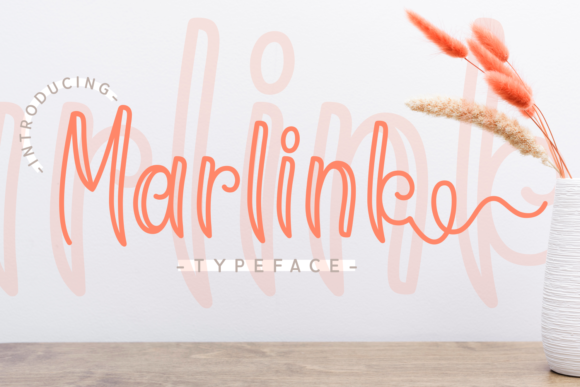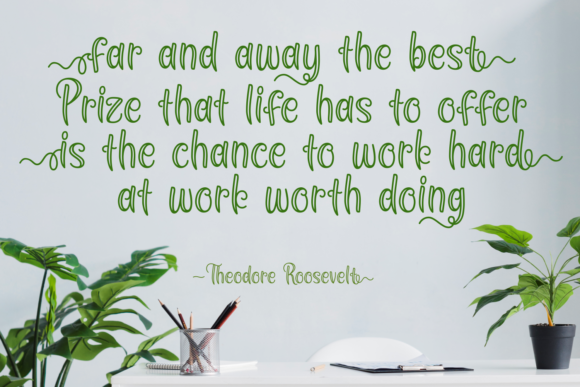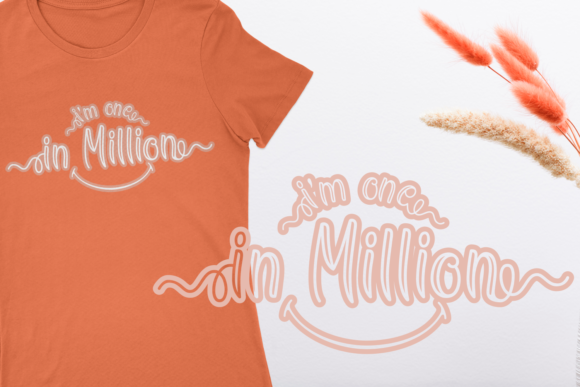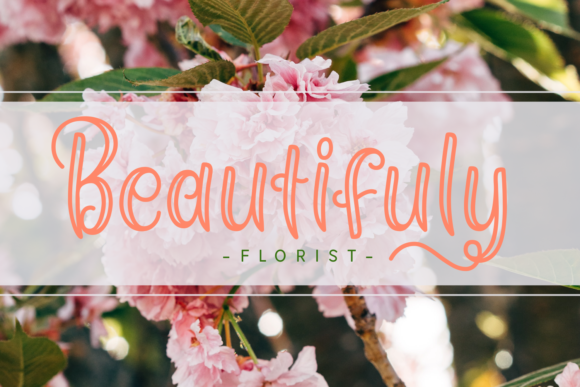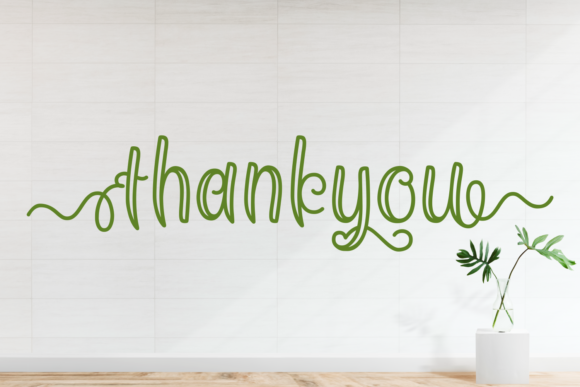
Marlink Font
About Marlink Font
Marlink is a lovely handwritten font. It looks outstanding on wedding invitations, thank you cards, quotes, greeting cards, logos, business cards and every other design which needs a handwritten touch.